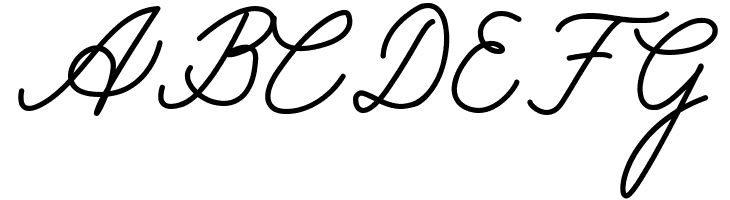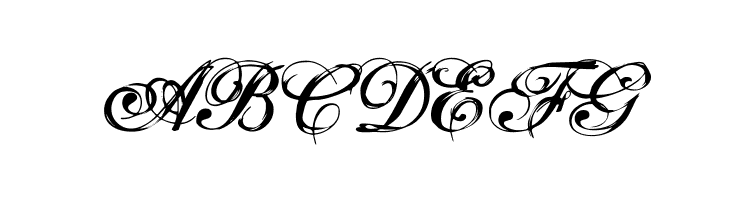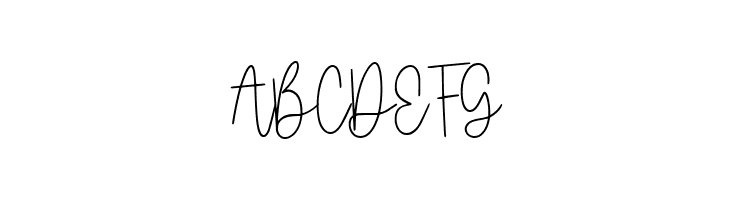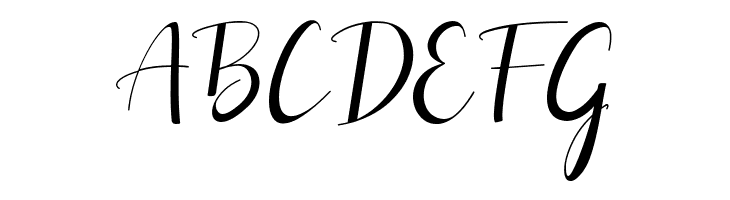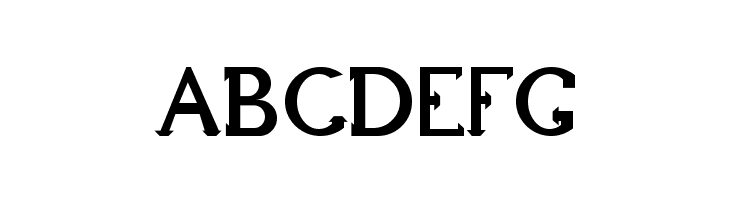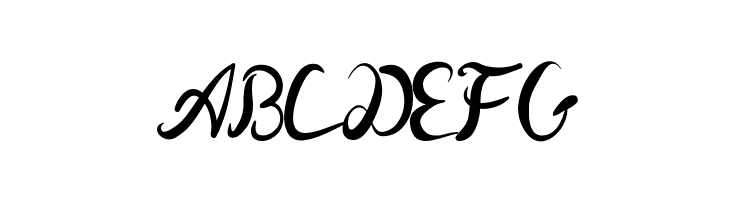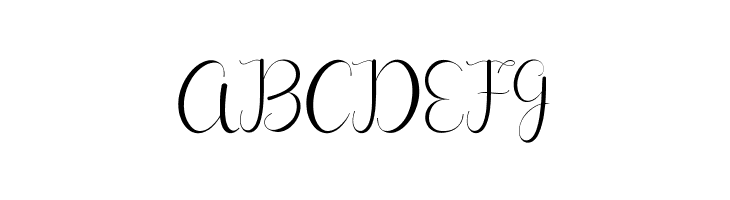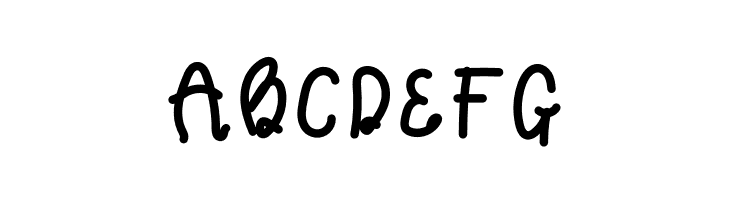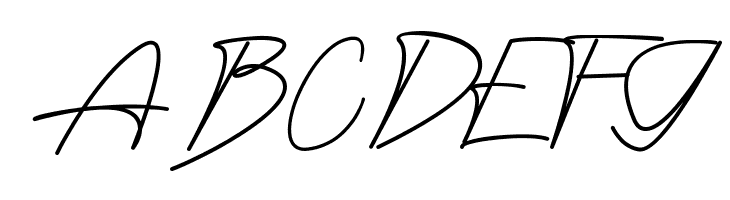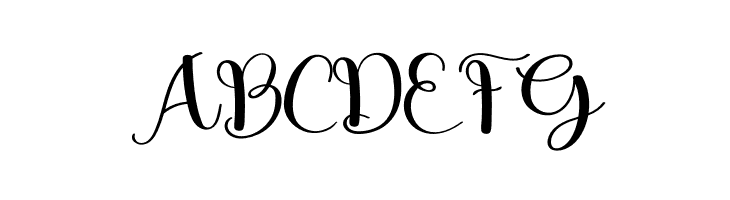
A modern, light, and clean sans-serif font with excellent readability.
A modern, semi-bold sans-serif font with excellent readability and versatility.
A clean, modern sans-serif font with uniform stroke width and excellent readability.
A bold, expressive handwritten font with dynamic strokes and a playful style.
A bold, decorative font with geometric characters enclosed in striped frames.
A decorative, bold font with geometric patterns and enclosed characters.
A bold, decorative font with characters enclosed in striped square frames.
Bold, geometric font with characters in decorative square frames.
A vintage typewriter-style font with rounded edges and a handcrafted look.
A monospaced typewriter-style font with a vintage, textured appearance.
A vintage, handwritten-style font with dynamic, fluid characters.
A modern, geometric font with sharp angles and smooth curves.
A bold, geometric font with angular shapes and a modern style.
A bold, three-dimensional font with a playful and dynamic style.
A playful, handwritten script font with bold, dynamic strokes.
A cursive, elegant font with interconnected letters and a stylish flow.
A bold, handwritten script font with a playful and dynamic style.
An elegant script font with flowing, interconnected letters and decorative flourishes.
A bold, rounded font with a modern and slightly futuristic style.
A bold, grunge-style font with a distressed, hand-painted appearance.
A modern, elegant script font with fluid, connected letterforms.
An elegant, flowing script font with dynamic curves and expressive strokes.
A bold serif font with a modern twist, featuring distinct serifs and a strong presence.
An elegant and ornate script font with flowing, interconnected letterforms.
A whimsical font with intricate spiral designs and thin lines.
A whimsical font with intricate spiral patterns and decorative swirls.
A bold, distressed font with a grunge aesthetic and jagged edges.
A modern, versatile font with medium contrast and a clean, elegant design.
A playful and elegant handwritten font with smooth, flowing lines.
An elegant, flowing script font with graceful curves and sophisticated style.
An elegant script font with flowing, cursive style and high contrast.
A classic serif font with elegant, sharp serifs and subtle medieval influences.
A playful and elegant script font with flowing, cursive design.